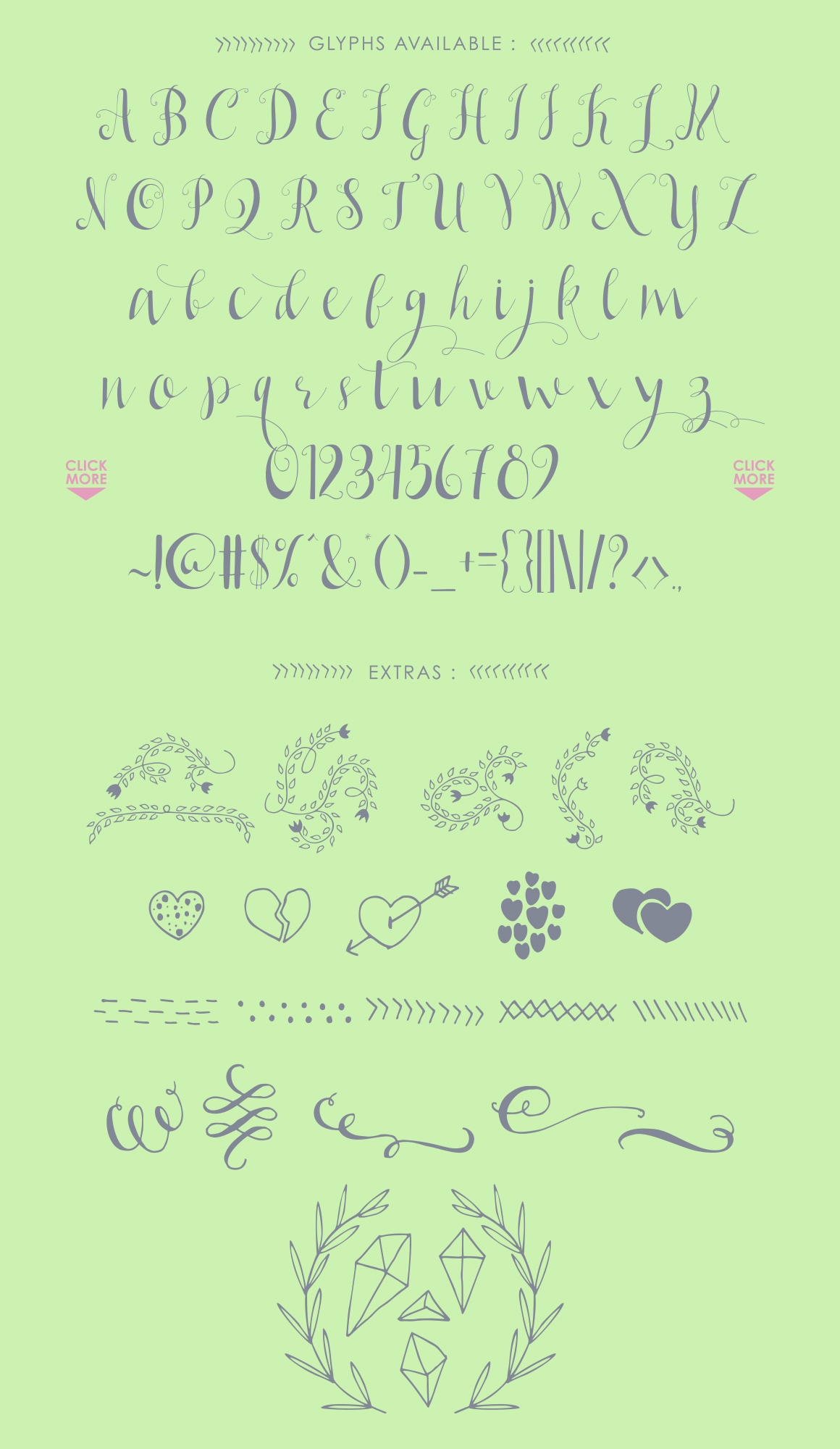
Judy Ornaments Font . Thousands of designers (famous or not) use the image font detection system to find a font or similar free fonts from an image. Download judy ornaments otf (400) font. Regular), 52 characters in total. Introducing judy ornaments, a captivating and whimsical font that is perfect for adding a touch of elegance and charm to your designs. The details includes the note of the author, license type and the representation of the font. Judy ornaments otf (400) by anggamahardika Judyornaments 1.000 font(font family name:judy ornaments;font style name:regular),52 characters in total.character. Judyornaments 1.000 font (font family name: Please see the details of the judy ornaments font below.